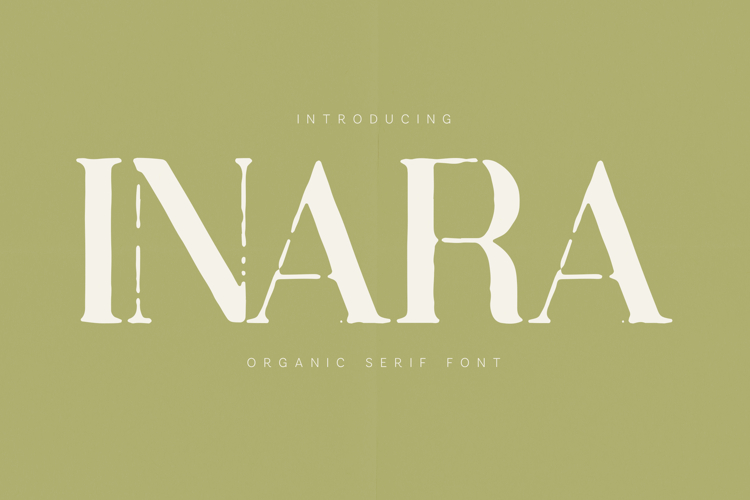
Inara Organic Serif Font Elegant Distressed Vintage Display
Inara is an elegant organic serif font that blends refined classical letterforms with naturally distressed details. Inspired by vintage print textures, artisan craftsmanship, and timeless editorial typography, Inara brings character, sophistication, and authenticity to every design.
Featuring carefully crafted uppercase and lowercase letters, numerals, punctuation, multilingual language support, and OpenType functionality, Inara is perfect for creating distinctive branding, luxury packaging, editorial layouts, book covers, logos, restaurant identities, wine labels, boutique hotels, organic products, and premium marketing materials.
Its unique combination of graceful serif construction and subtle weathered imperfections creates a warm, handcrafted appearance while maintaining excellent readability and visual impact.
- Uppercase Letters
- Lowercase Letters
- Numbers & Punctuation
- Organic Distressed Details
- Vintage Inspired Design
- Logo Design
- Branding Projects
- Editorial Design
- Book Covers
- Wine Labels
- Boutique Hotels
- Organic Product Packaging
- Restaurant Branding
- Luxury Packaging
- Social Media Graphics